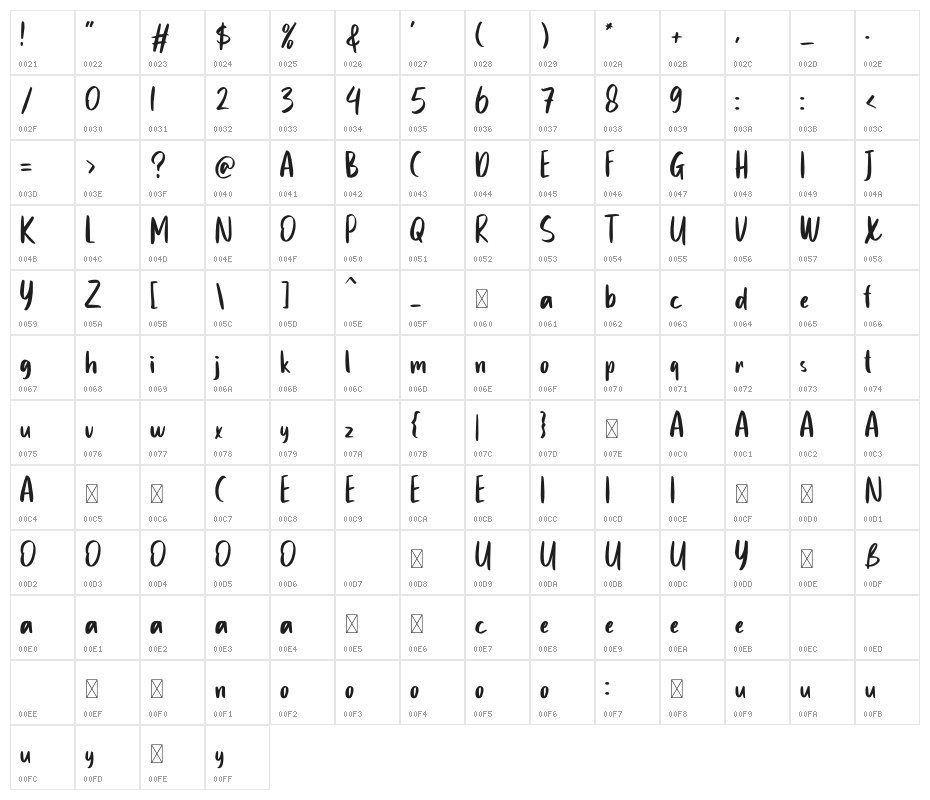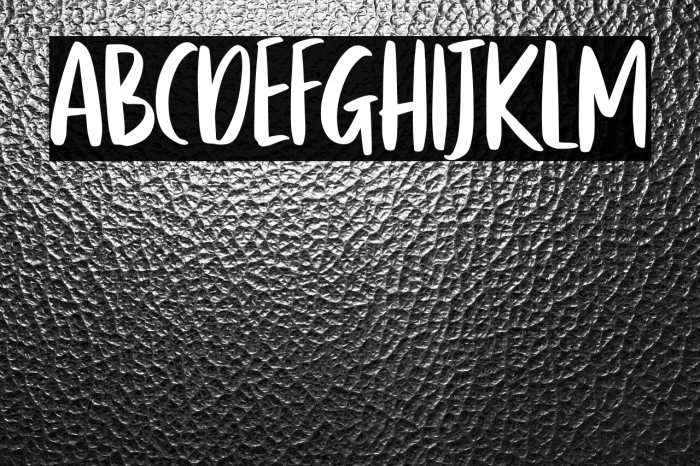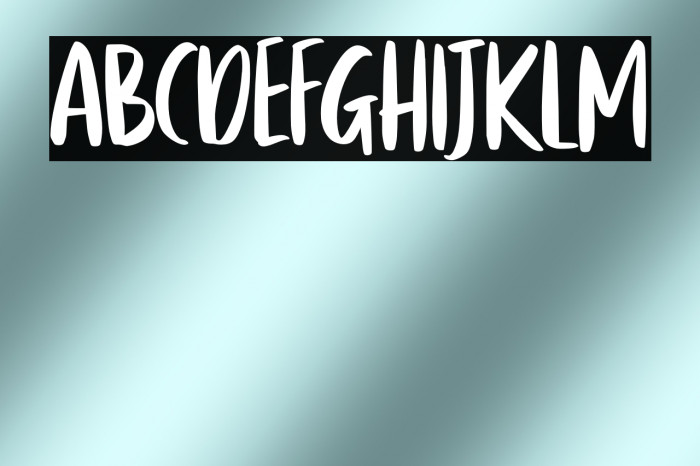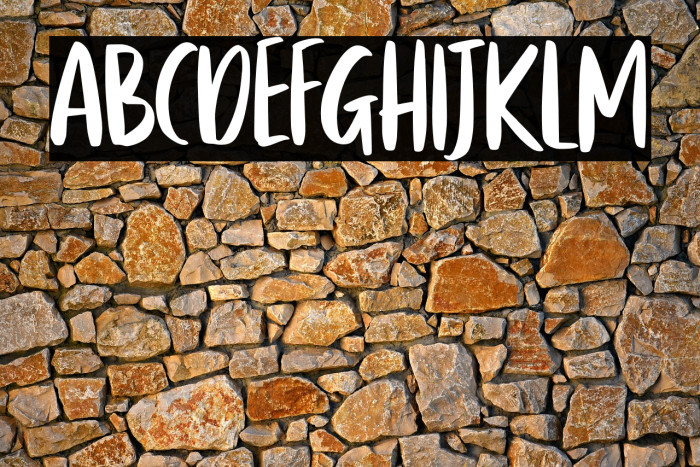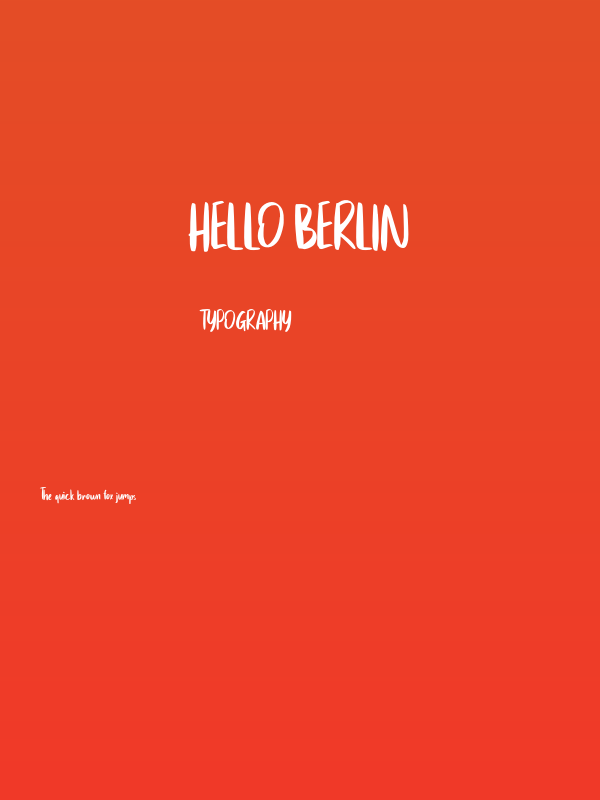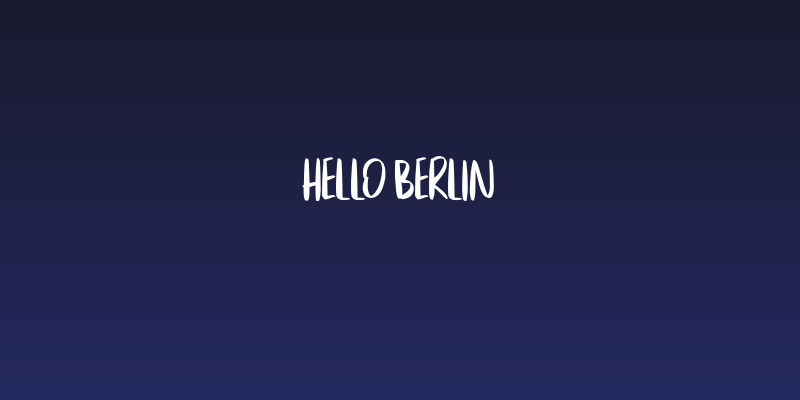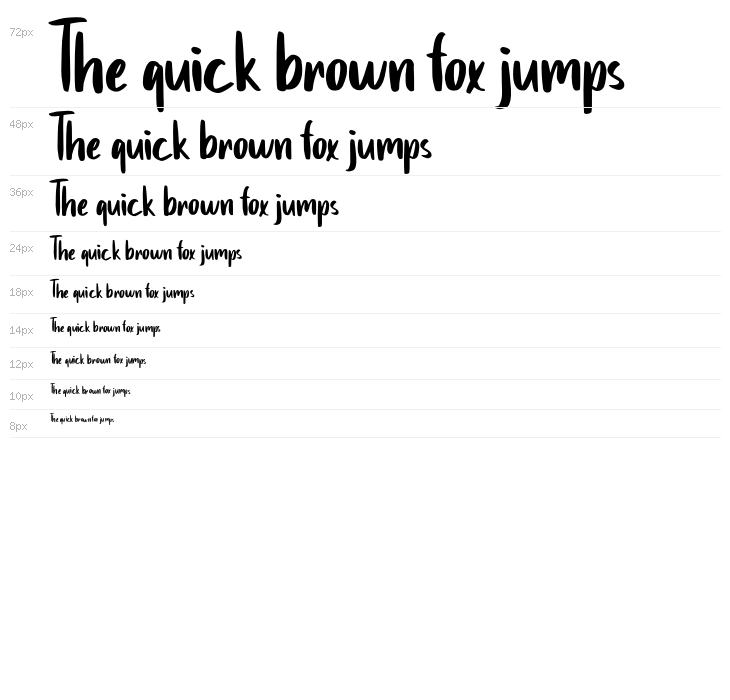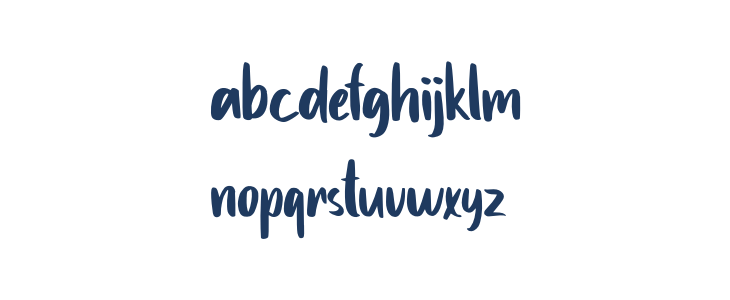
hello berlin Font
hello berlin Description
This font features a playful and energetic handwritten style, characterized by its bold and slightly irregular strokes. The letters have a casual and friendly appearance, with a dynamic flow that suggests movement and spontaneity. The uppercase and lowercase letters maintain a consistent style, with rounded edges and varying stroke widths that add to its informal charm. The numerals and special characters are designed to match the overall aesthetic, making it versatile for various uses. Its unique personality makes it suitable for projects that require a personal touch.
| Overall Style | Casual, Playful |
| Use Case | Headlines, Logos, Social Media Graphics |
| Proposed Projects | Ideal for greeting cards, invitations, social media graphics, and branding projects that require a personal and informal touch. |